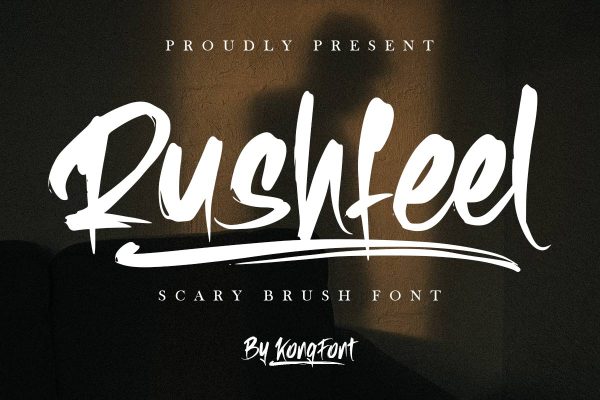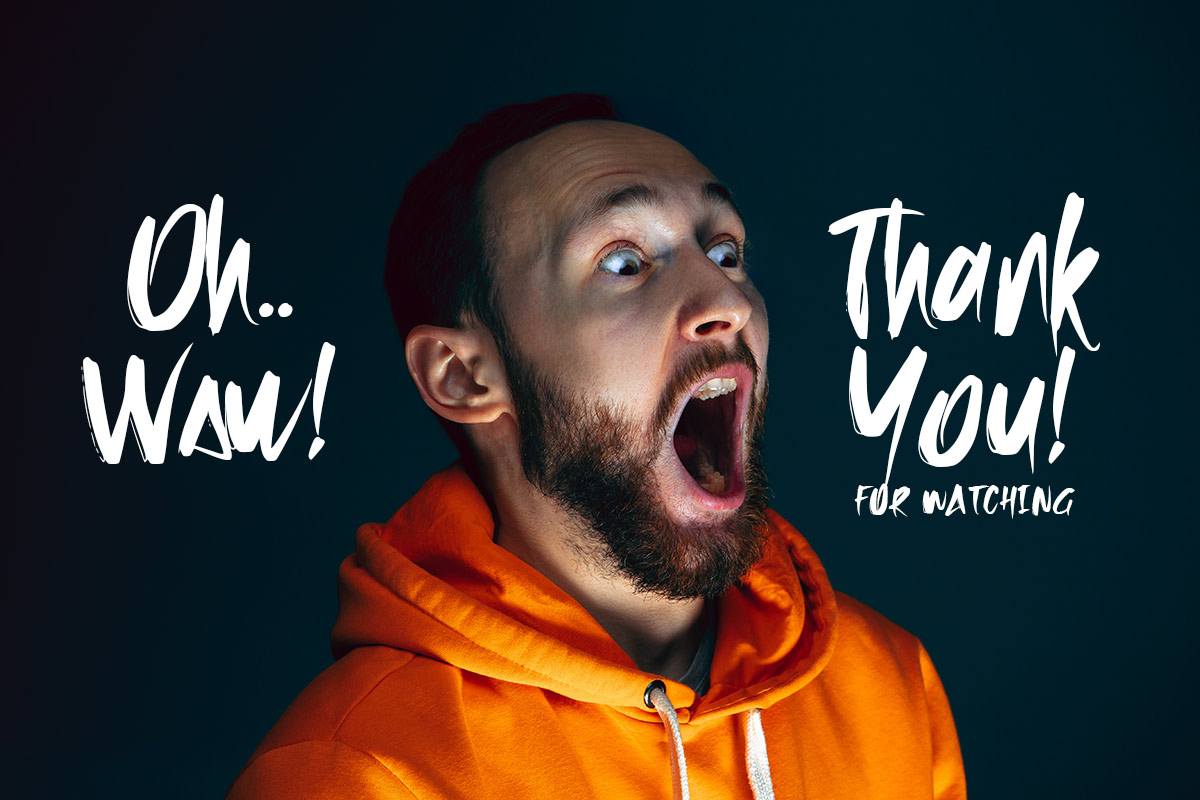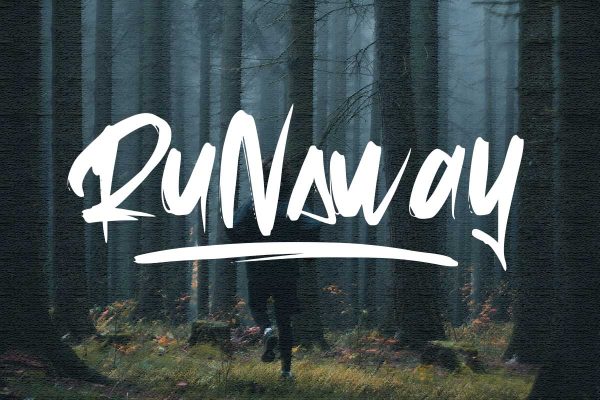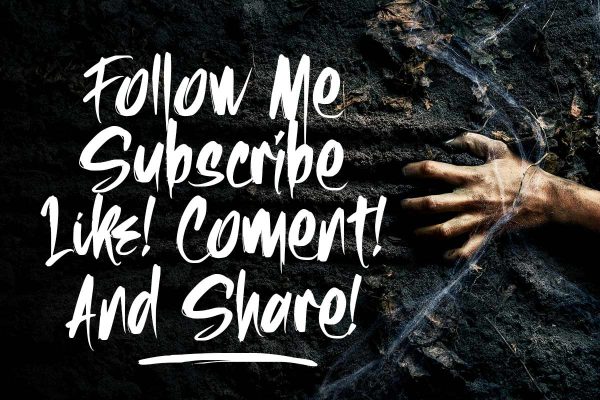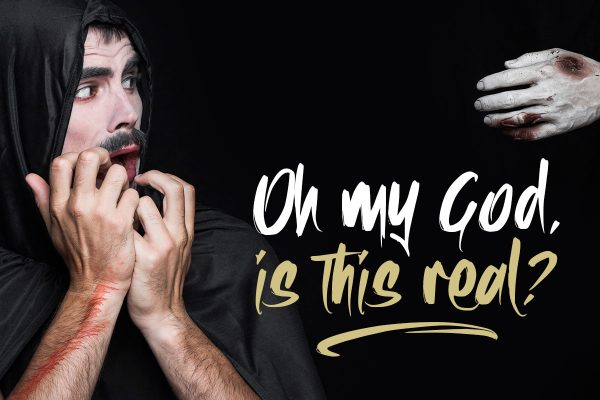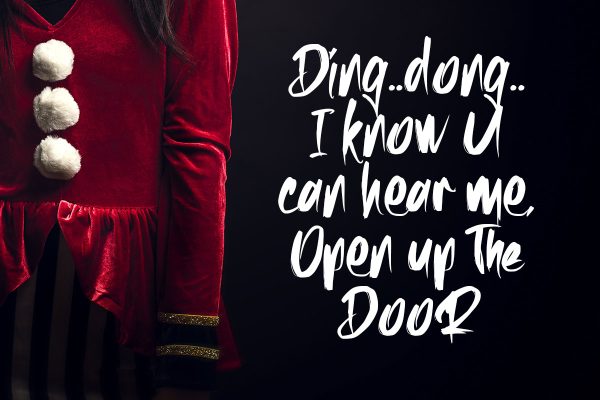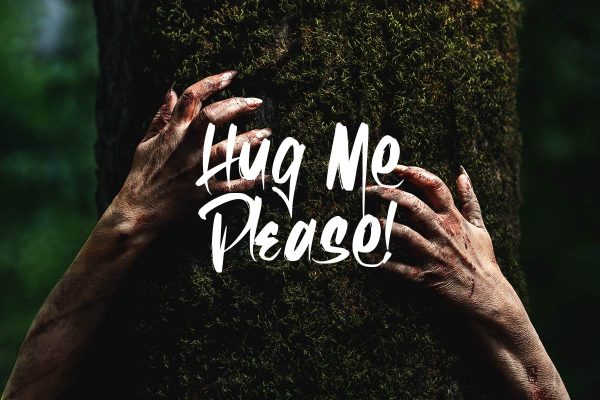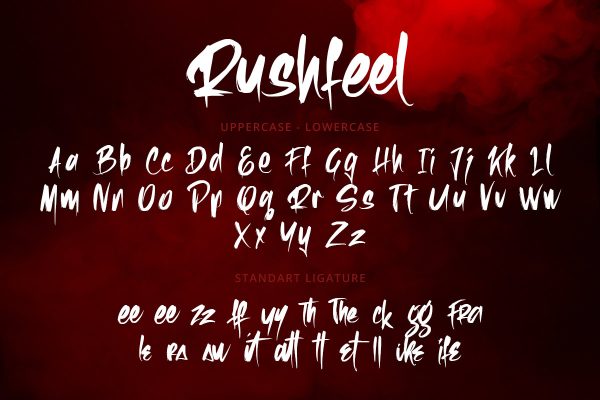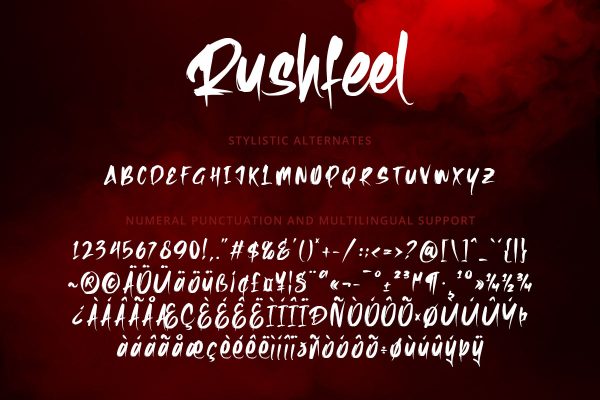
Rushfeel Scary Brush Font was created to bring something different to Brush Font fans. This font has characteristics like an elegant font but is written using a brush. This results in incomplete strokes across most of the body of the letters. Even so, this font can be easily distinguished between letters. The Rushfeel Scary Brush Font is illegible. The Rushfeel Scary Brush Font is modern. It exudes a firm and respected impression. This font is one of the best fonts for clothing item design. Its clean characteristics are very suitable to be combined with various clothing brands, such as jackets, t-shirts, and clothes. It can be a screen printing of text and brand tags to attract buyers. Entrepreneurs can use the Rushfeel Scary Brush Font to sell their products. This font can be used for writing on posters promoting their products. In addition to printed posters, this font can complement product photo catalogs created for online promotion on social media, such as Instagram and Facebook. So, The Rushfeel Scary Brush Font is a digital and print font. Our brush fonts collection is compatible to use as Figma fonts, Canva fonts, Freepik Fonts, and Adobe Fonts. They also work as Windows Fonts and Apple Fonts. For your social media needs, you can use and install fonts in our Brush font collection to use as Instagram Fonts, Facebook Fonts, and Twitter Fonts.